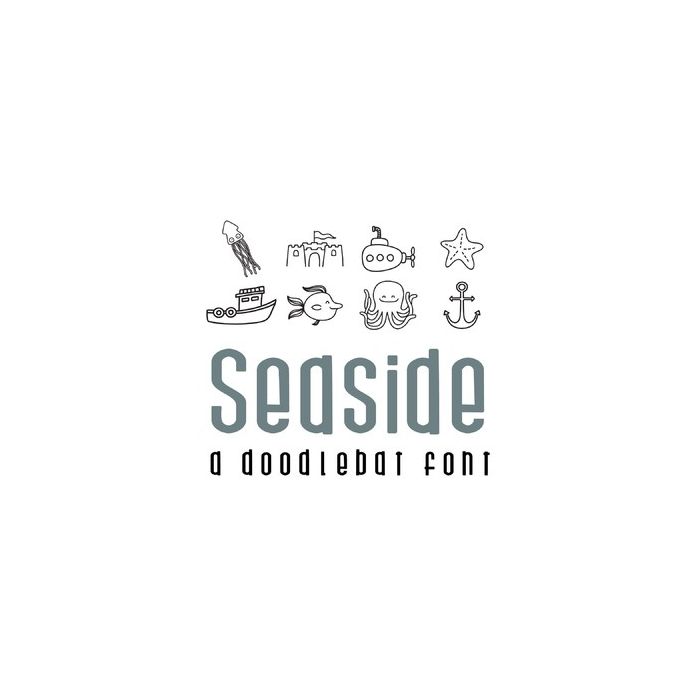
seaside doodlebat font
This fun doodlebat font features 26 adorable seaside images. Perfect for cards, gifts, decor, crafts, scrap book pages, planner stickers and more!